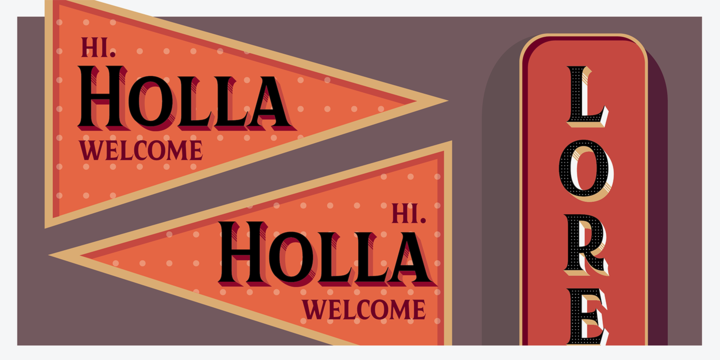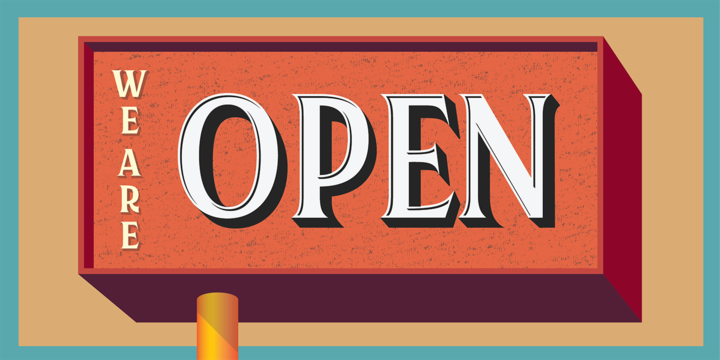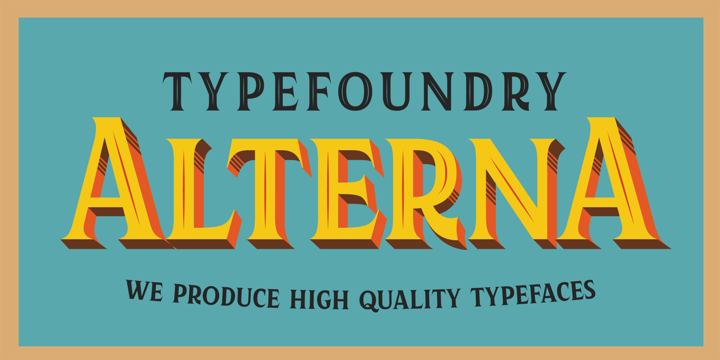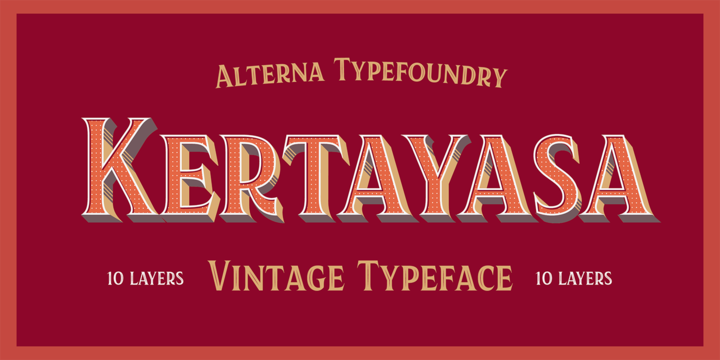
Kertayasa is a layered typeface inspired by an old signage and vintage letter painting. It consist of 10 Layers, a wide support of latin languages, and some alternates. With it, you're able to create a beautiful vintage display style and logo.